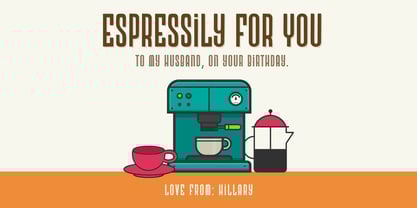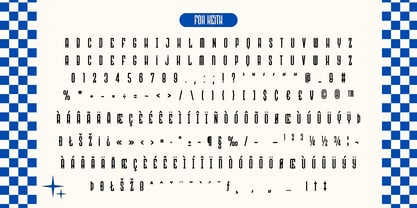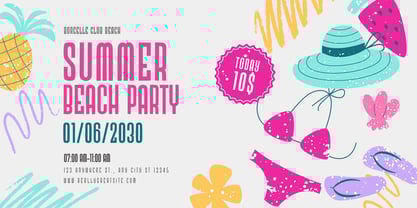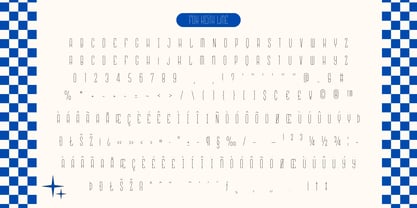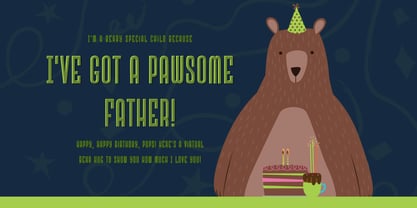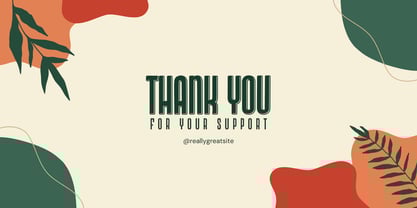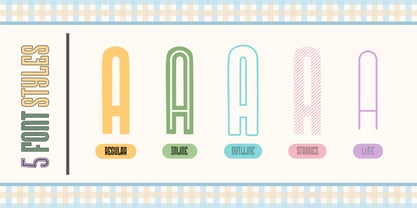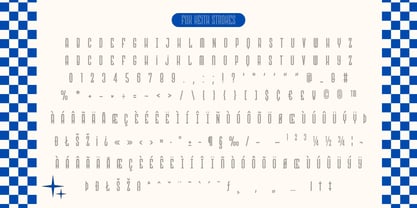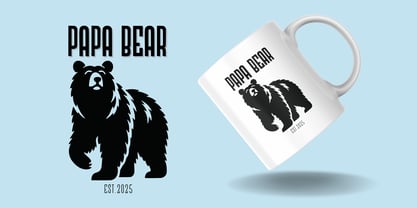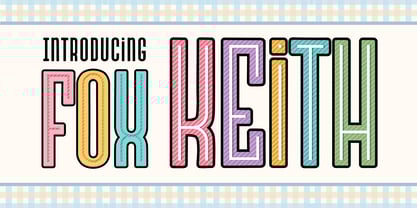
Fox Keith
by Fox7
The Fox Keith Font Family was designed by Rattana Rattanawan and published by Fox7. Fox Keith contains 5 styles and family package options.
Introducing Fox Keith, a delightful and playful typeface perfect for bringing a vibrant and cheerful vibe to your designs! This font offers a unique combination of retro and modern elements, making it ideal for a wide range of projects such as invitations, posters, branding, packaging, and more.
With 5 distinct styles Regular, Inline, Outline, Strokes, and Line — Fox Keith provides versatility and creative flexibility. Each style adds its own character, allowing you to mix and match for an eye-catching design. Whether you're aiming for a bold statement or a subtle decorative touch, Fox Keith has you covered.
Add a burst of fun to your creative projects with Fox Keith's colorful and playful aesthetic! Perfect for those who want their typography to stand out.
Designers: Rattana Rattanawan
Publisher: Fox7
Foundry: Fox7
Design Owner: Fox7